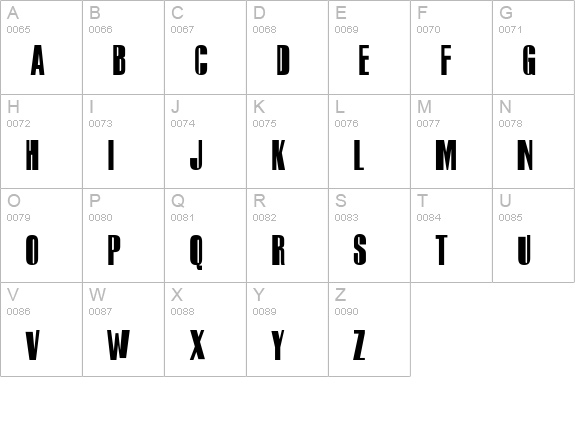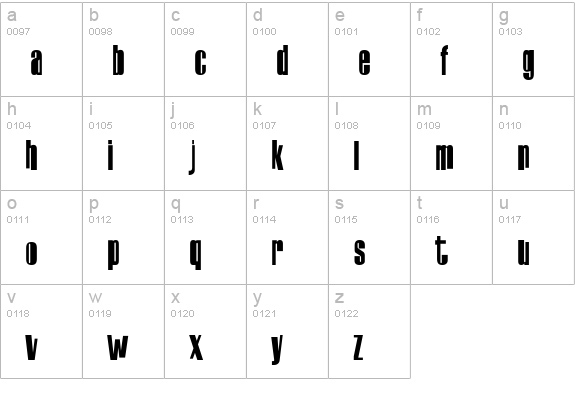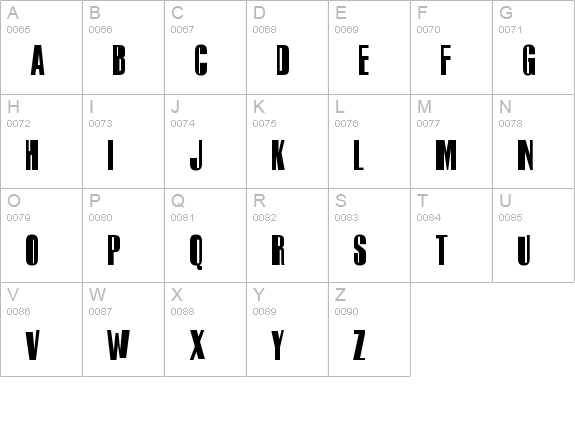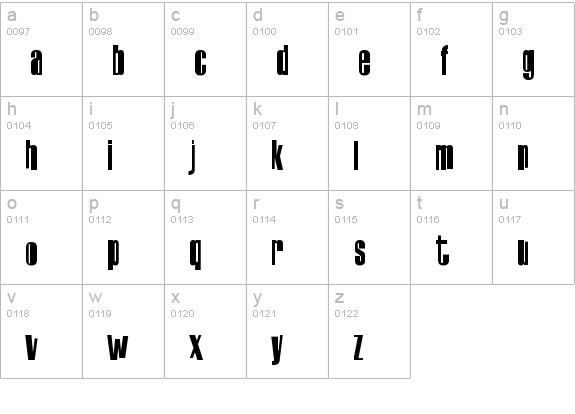
PFOffbeat Hip Font Details
PFOffbeat Hip font is a unique and quirky typeface that is sure to add a touch of creativity to any design project. With its offbeat and playful style, this font is perfect for making a statement and standing out from the crowd. The irregular letter shapes and uneven lines give PFOffbeat Hip a fun and whimsical feel that is perfect for adding a touch of personality to your designs. What's even better is that PFOffbeat Hip font is available for free download at FontsMarket.com. This means that you can easily add this eye-catching font to your collection without having to spend a dime. Whether you're working on a poster, flyer, logo, or any other design project, PFOffbeat Hip font is sure to make a bold statement and leave a lasting impression. Download it today and let your creativity run wild with this dynamic and free-spirited font.